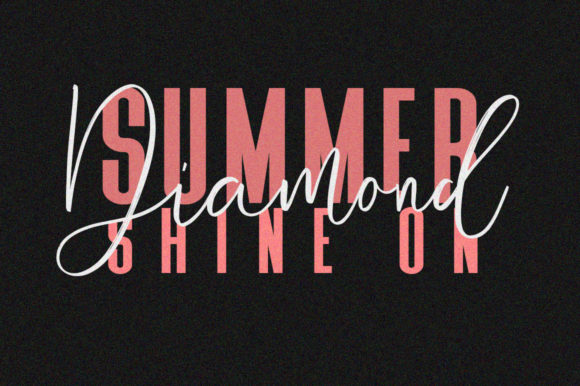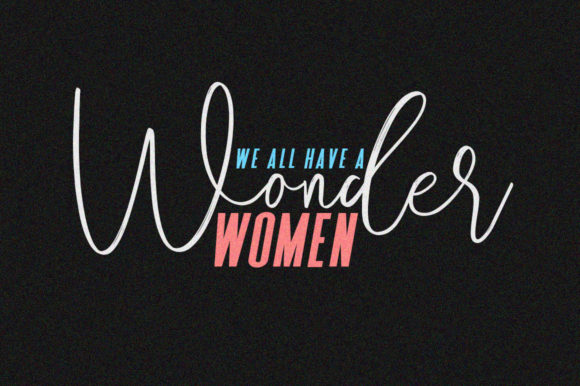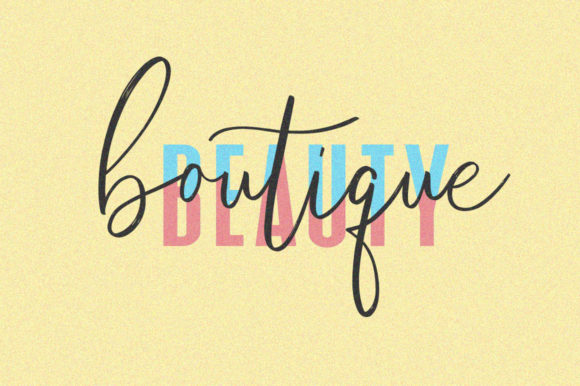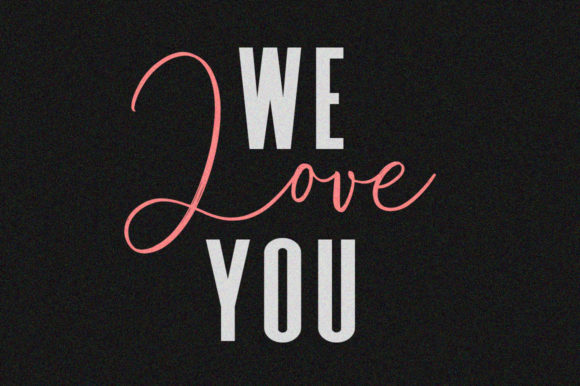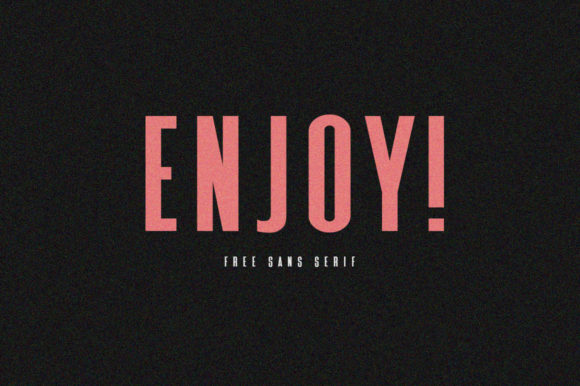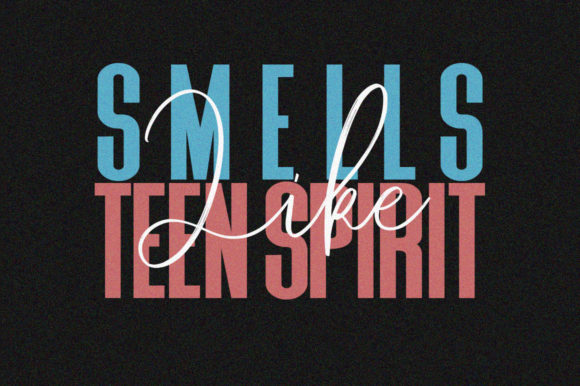
Introduction to Rhosetta Script Font
As a designer, have you ever found yourself staring at a blank canvas, searching for the perfect font to elevate your creative project? You know, that moment when the entire design comes together, and it’s just… magic. For many designers, this moment is elusive, but with the right tools, it can be a reality. Enter the Rhosetta Script Font, a stunning duo font that’s about to become your new best friend.
With its incredibly versatile sans and script combination, Rhosetta Script Font is the perfect design resource for any project. Whether you’re creating wedding invitations, thank you cards, or logos, this font is sure to add a touch of elegance and sophistication. And the best part? It’s available for free download, making it an accessible high-quality design resource for designers of all levels.
Key Features of Rhosetta Script Font
- Unique, elegant script design perfect for creative projects and design resources.
- Perfect for adding a touch of sophistication and elegance to various design elements, such as logos, invitations, and typography-based designs.
Honest Review: Rhosetta Script Font
I recently had the opportunity to work with the Rhosetta Script Font, and I must say it’s a fantastic addition to any designer’s toolkit. The high quality of the font is immediately apparent, with smooth lines and elegant curves that make it perfect for creative projects.
One of the standout features of the Rhosetta Script Font is its versatility. It’s available for free download, which is a major bonus for designers on a budget. The font also features a transparent background, making it easy to use in a variety of design scenarios.
Overall, I’m thoroughly impressed with the Rhosetta Script Font. It’s a valuable resource for any designer looking to add some elegance and sophistication to their projects. I highly recommend giving it a try!
To get the most out of the Rhosetta Script Font, use it sparingly and in combination with other design elements to create visual interest. Experiment with different font sizes, colors, and styles to achieve the desired effect.
The Rhosetta Script Font is ideal for creative projects such as:
- Birth announcements
- Menu designs